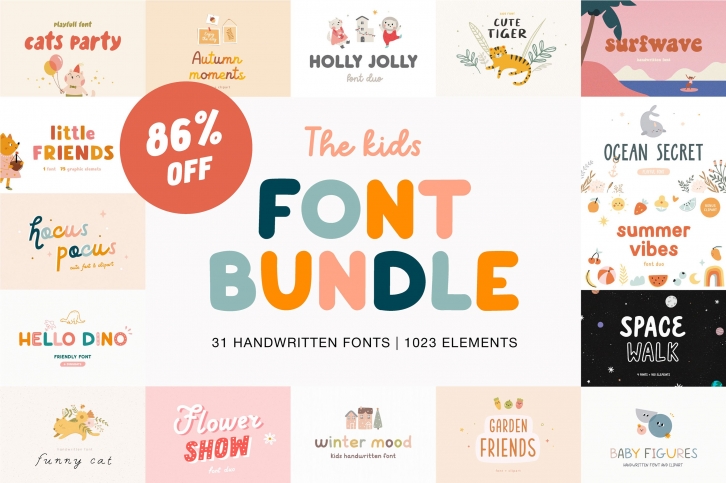
The kids BUNDLE is a trendy and unique font with an authentic style. It was designed by Julia Volkova and it's a great choice for creative people who need such a font. It was released on December 21, 2021 and the file size is 4.67 MB. The kids BUNDLE will add an organic vibe to any design idea!